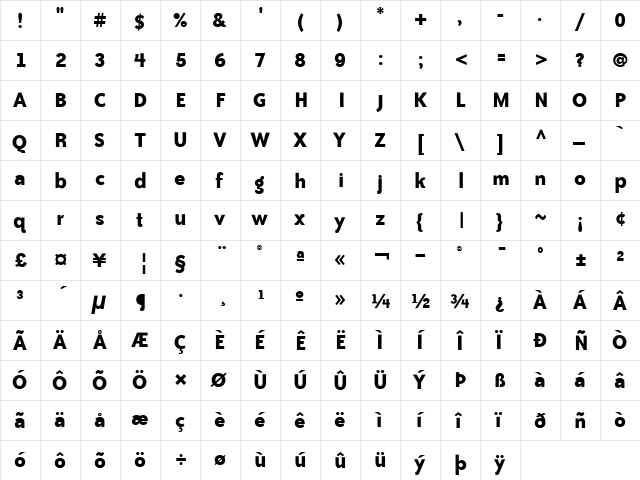
Bailey Sans ITC Regular
Design Context for Bailey Sans ITC Typeface
Bailey Sans ITC takes a measured approach to typography — its balanced proportions and neutral character make it a reliable workhorse for both digital and print work.